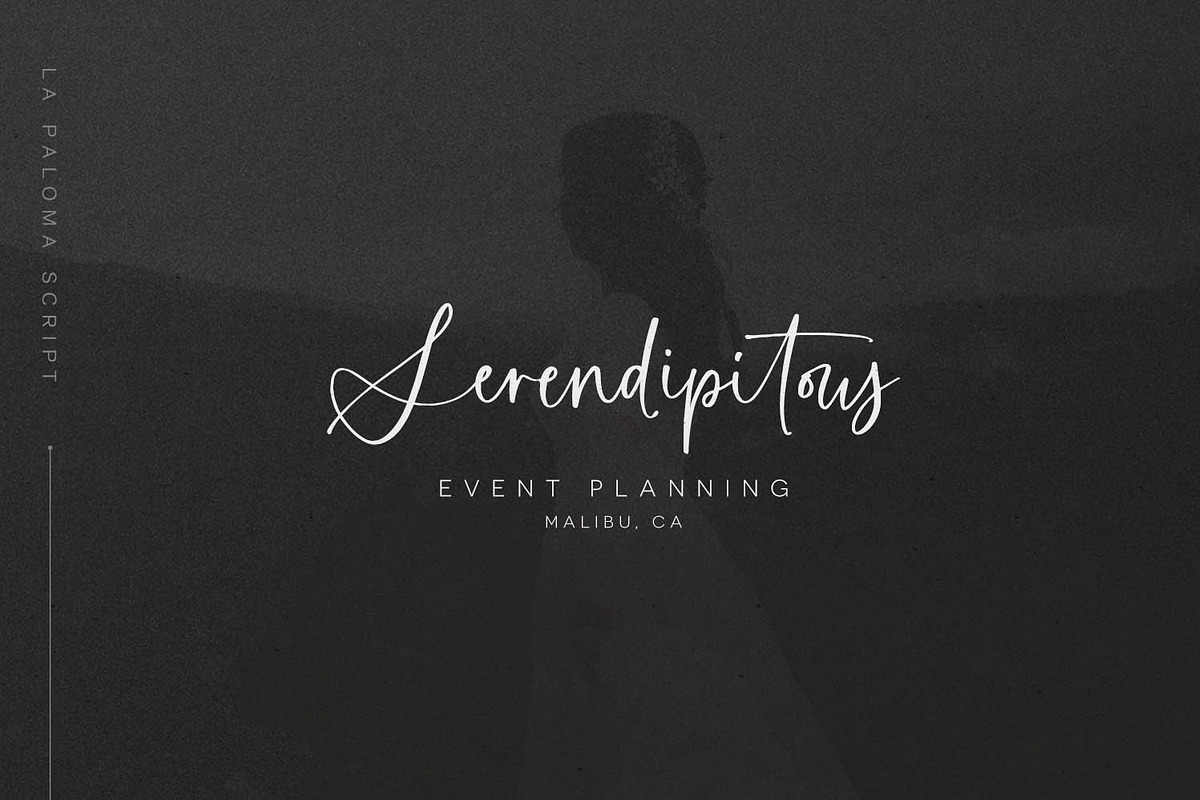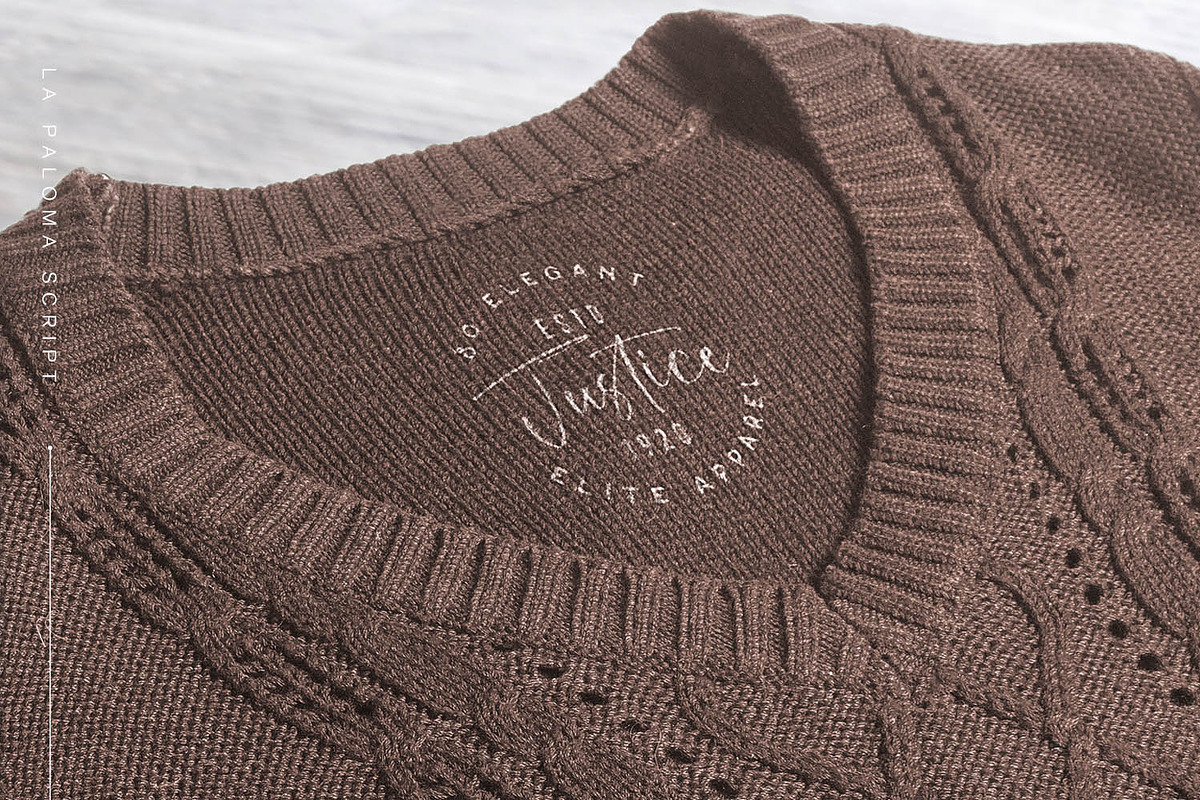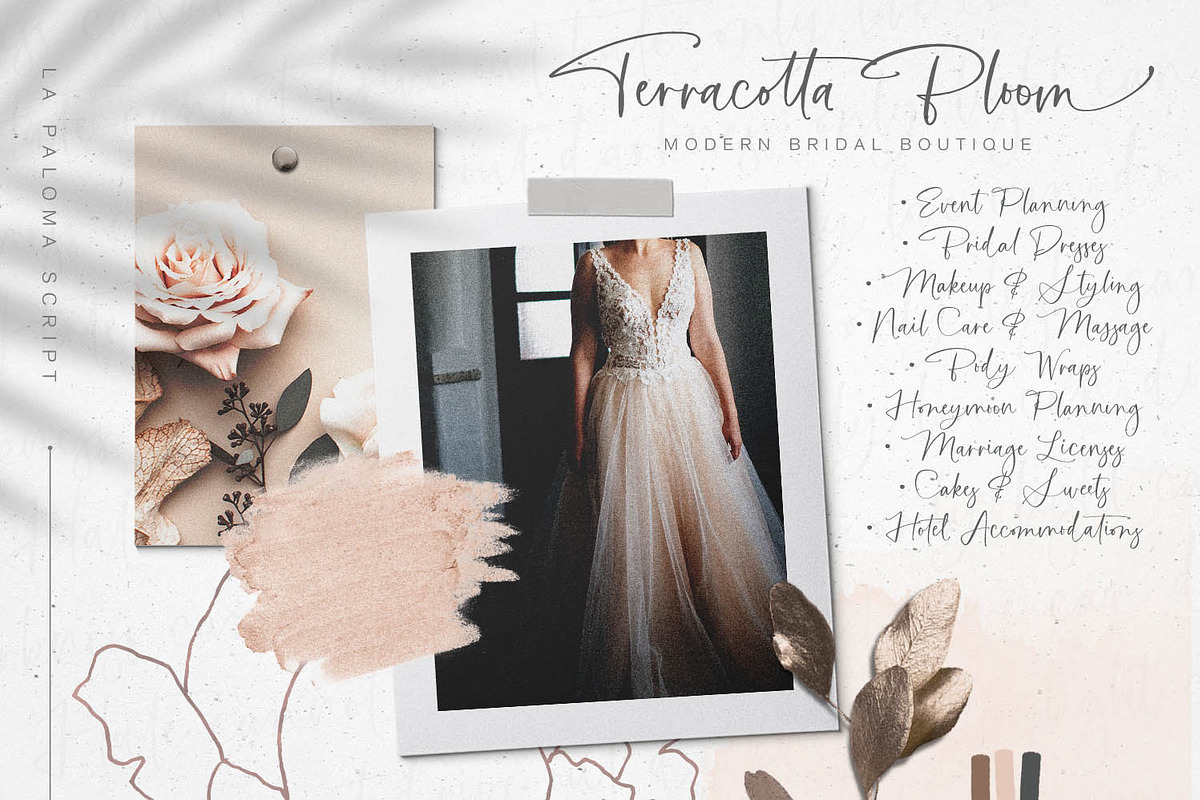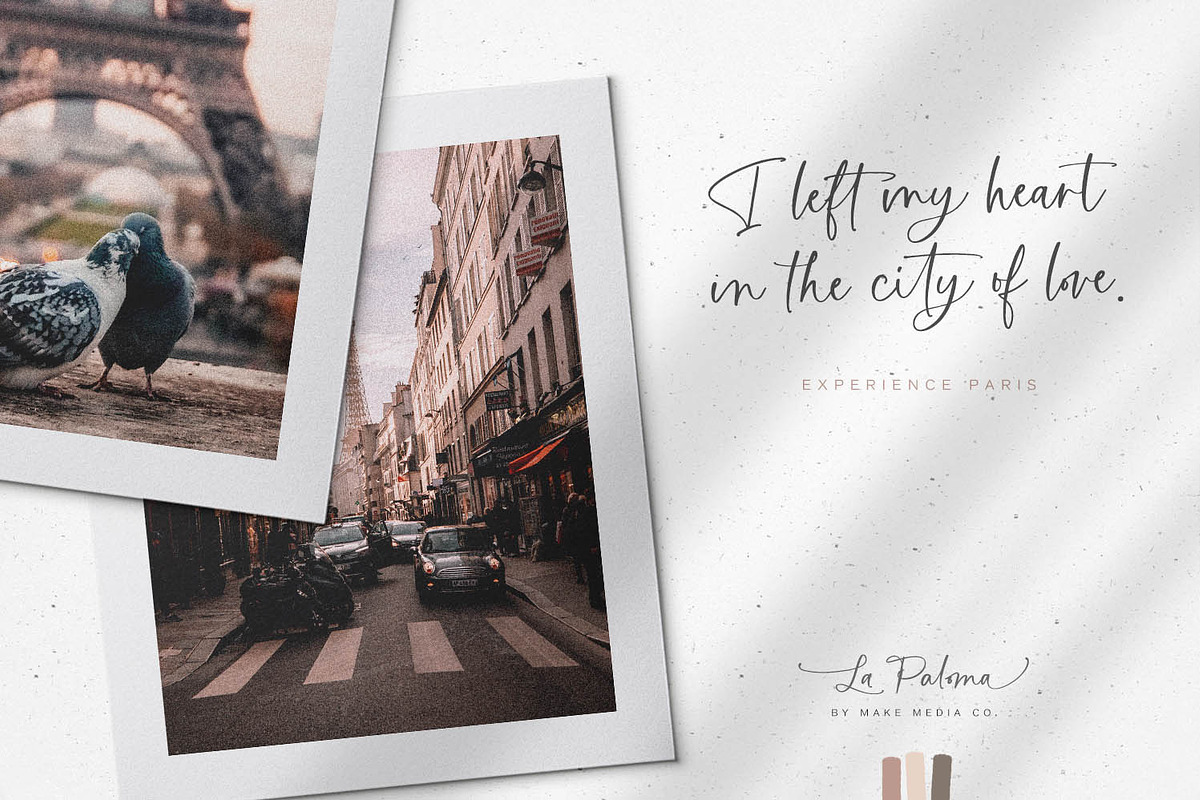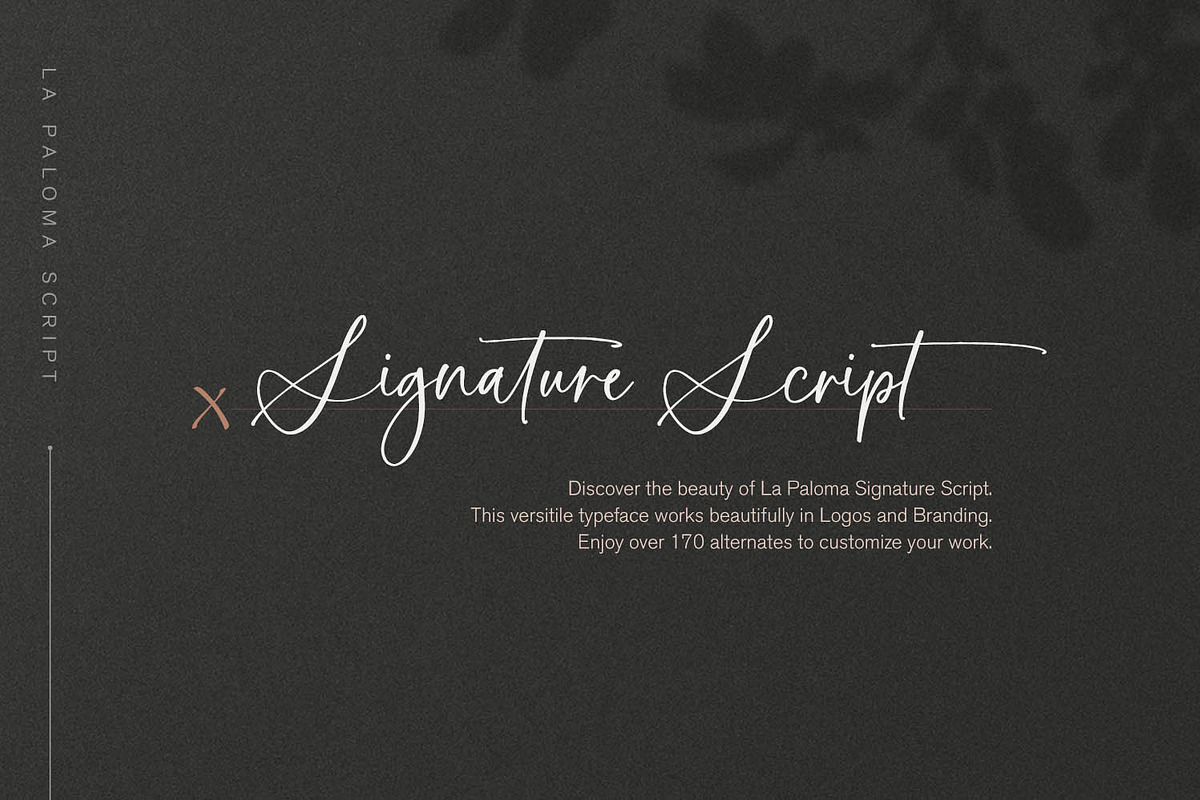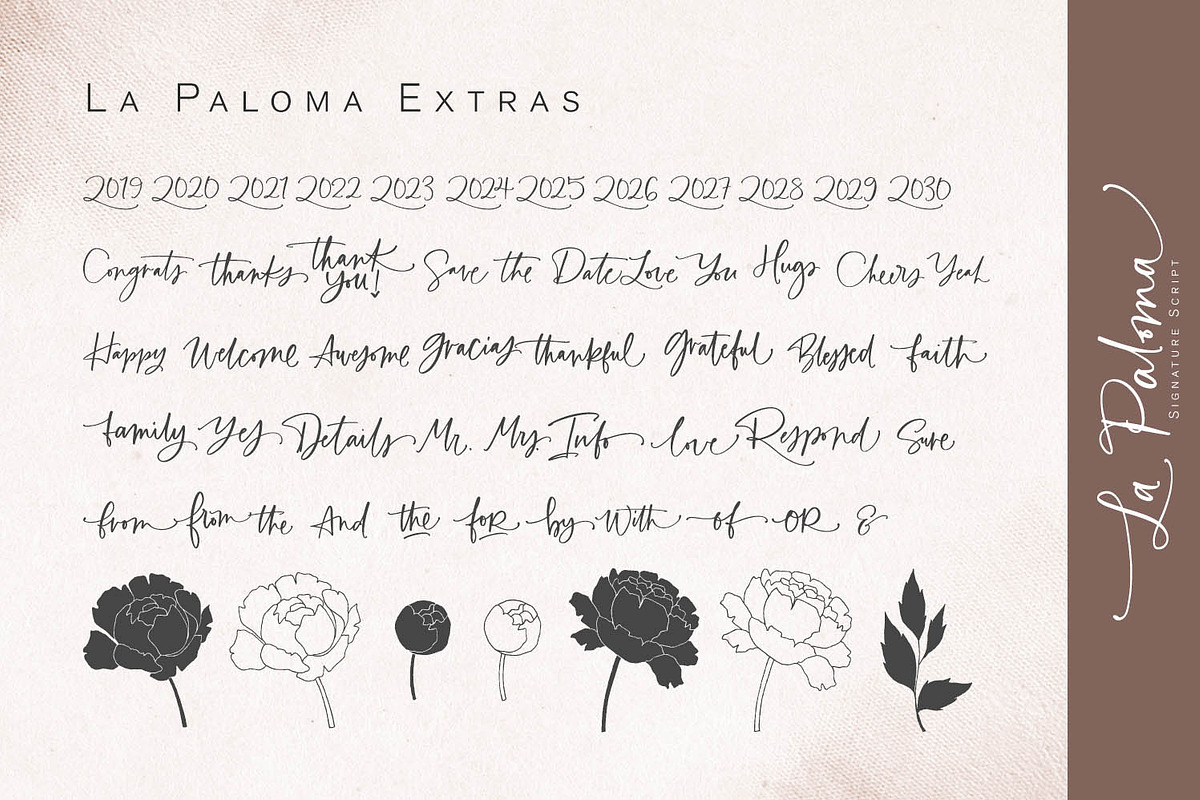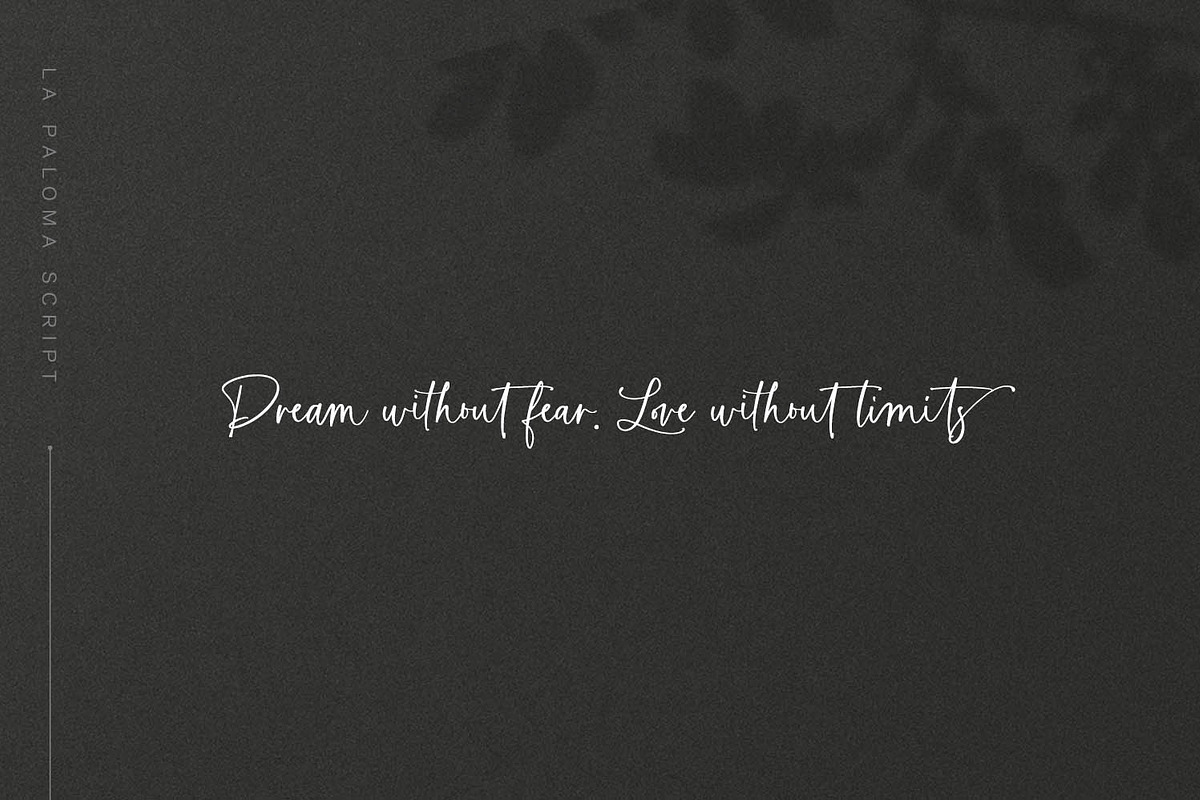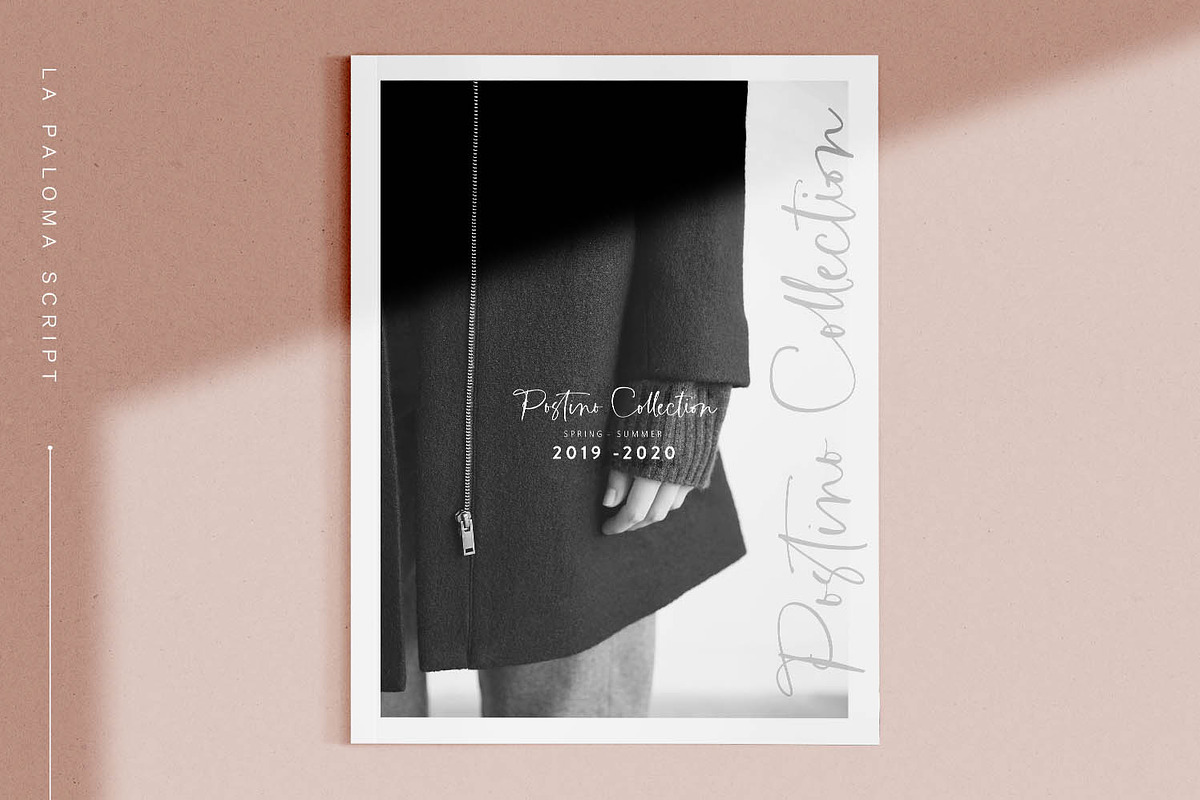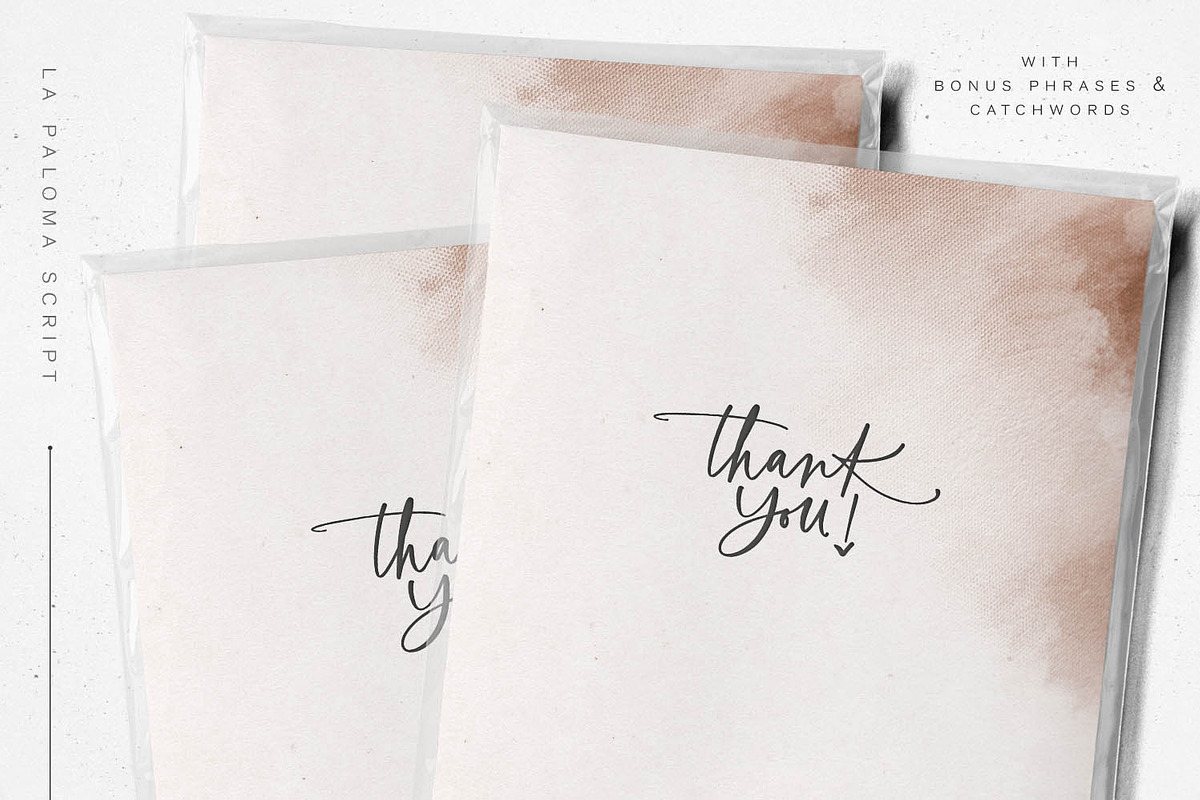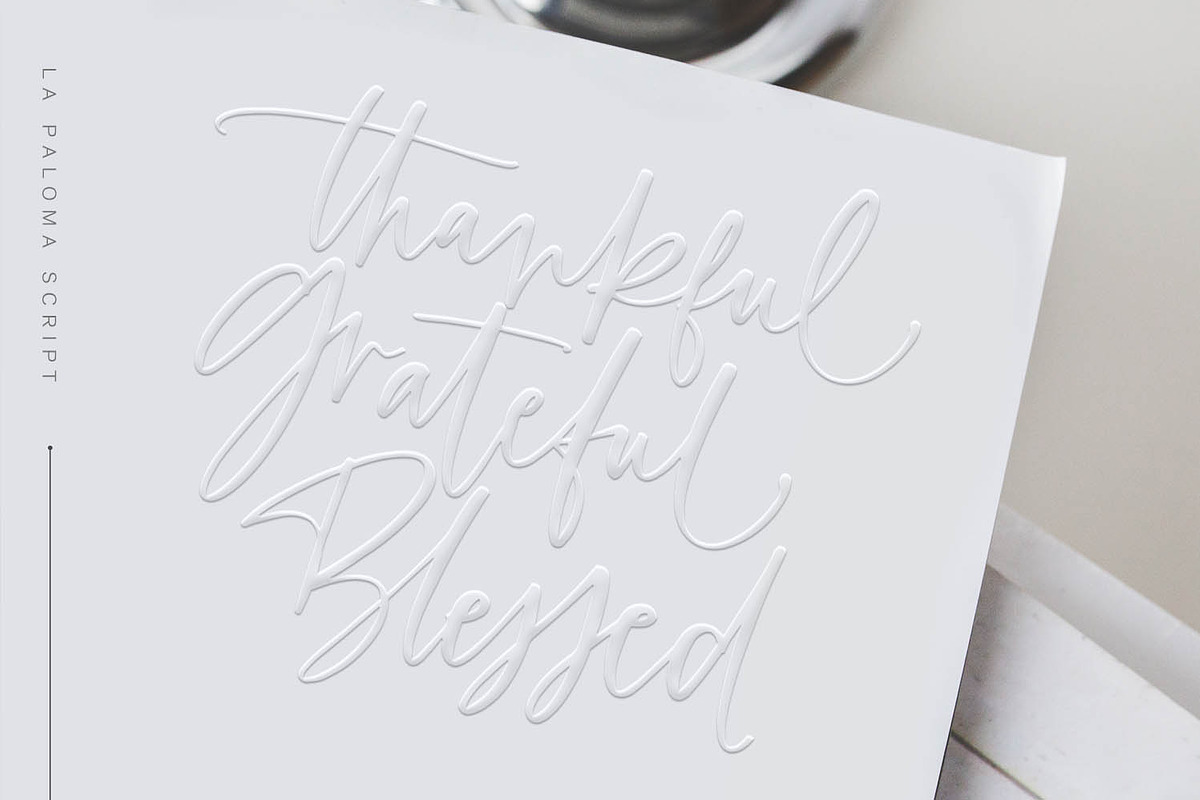
La Paloma Script + Catchwords
Add a touch of elegance to your work with La Paloma Script - A clean, modern, hand-written typeface with over 170 Ligatures and Decorative End Characters to add a dash of luxury to any project.
If you're looking for the perfect logo font, you just found it! La Paloma was designed with Branding in mind! But don't stop there, use this chic type in headlines & titles, signage, greeting cards & invitations.
- La Paloma Script (OTF & TTF) - An elegant typeface with over 190 alternates and extras.
- La Paloma Slanted (OTF & TTF) - An italic version of La Paloma Script.
- La Paloma Extras (OTF & TTF) - 79 Catchwords, Phrases & Florals.
- OpenType Features like automatic ligatures are available within the OTF file.
- Fonts Include the following Language Support: AÀÁÂÃÄÅCÇDÐEÈÉÊËIÌÍÎÏNÑOØÒÓÔÕÖUÙÜÚÛWẂŴẄẀYÝŸỲŸÆŒßÞþ